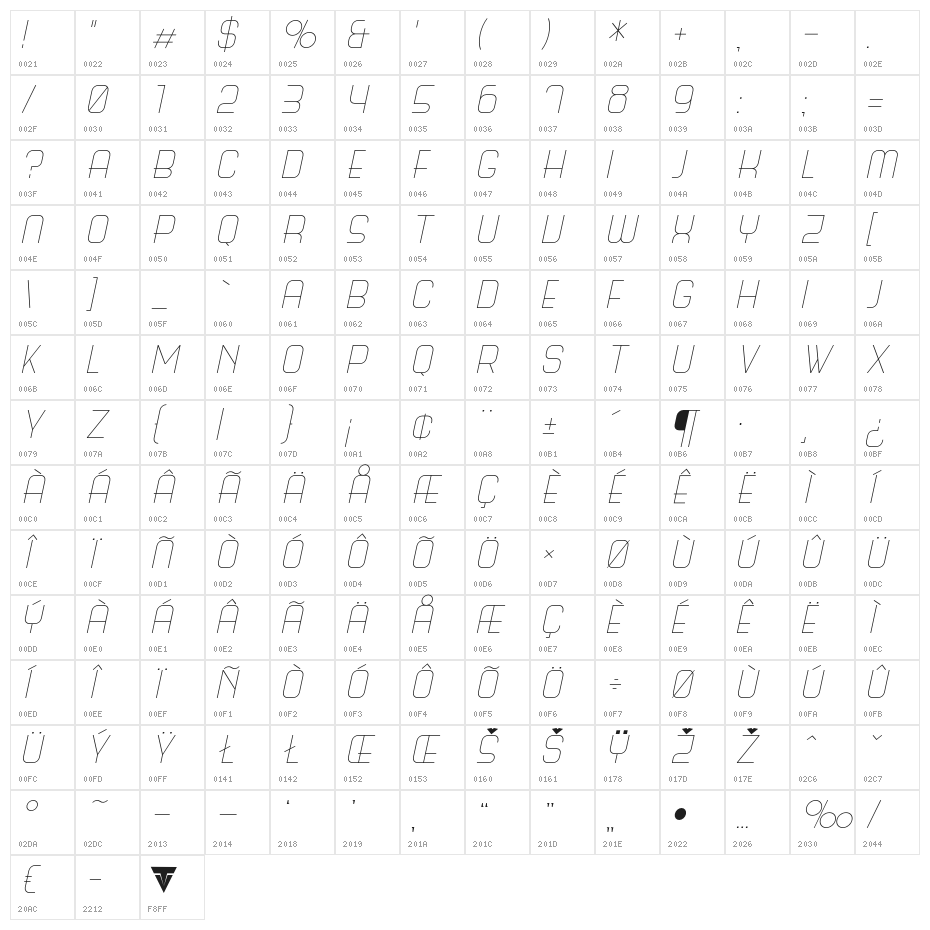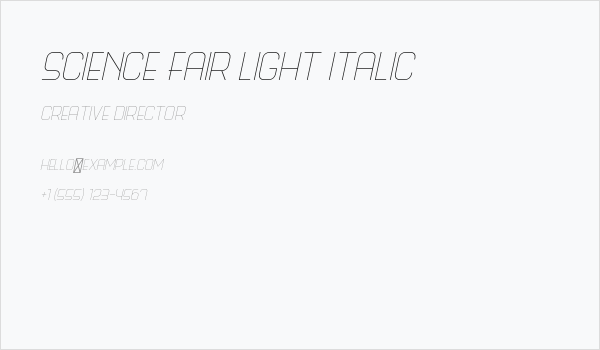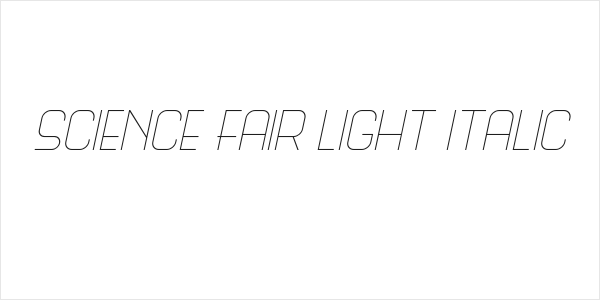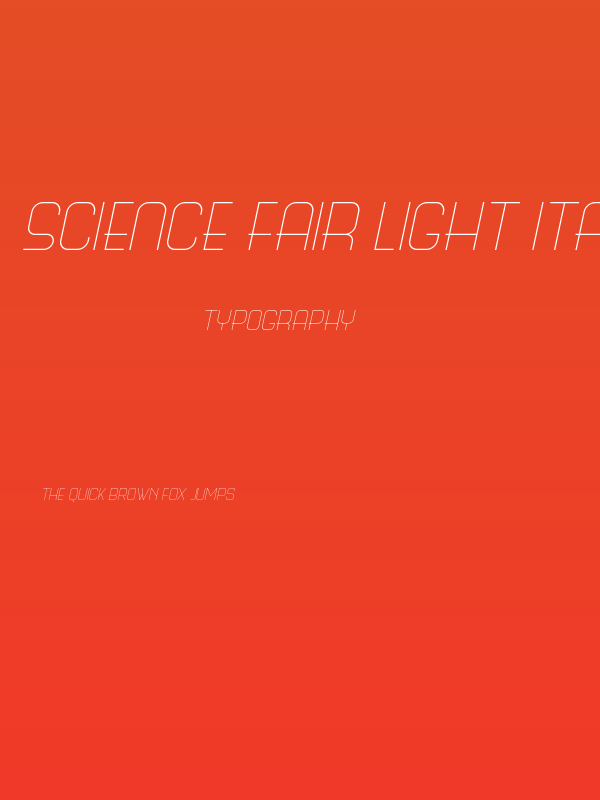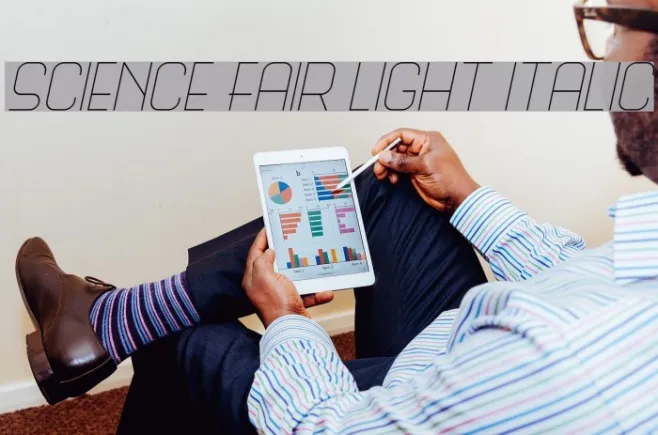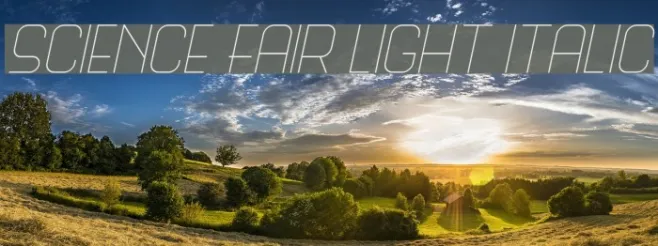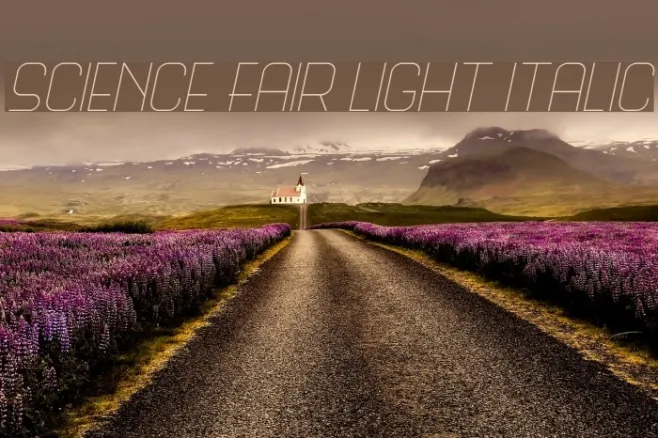
Science Fair Light Italic Font
Science Fair Light Italic Description
This font presents a sleek and futuristic design with a light and airy feel. The characters are elongated and slightly condensed, giving a sense of speed and modernity. The italic style adds a dynamic and forward-leaning appearance, enhancing its contemporary look. The strokes are thin and consistent, contributing to a clean and minimalistic aesthetic. The overall design is geometric, with sharp angles and smooth curves, making it suitable for projects that require a modern and technical touch.
| Proposed Projects | Ideal for technology branding, modern advertising, sci-fi themed projects, and innovative product packaging. |